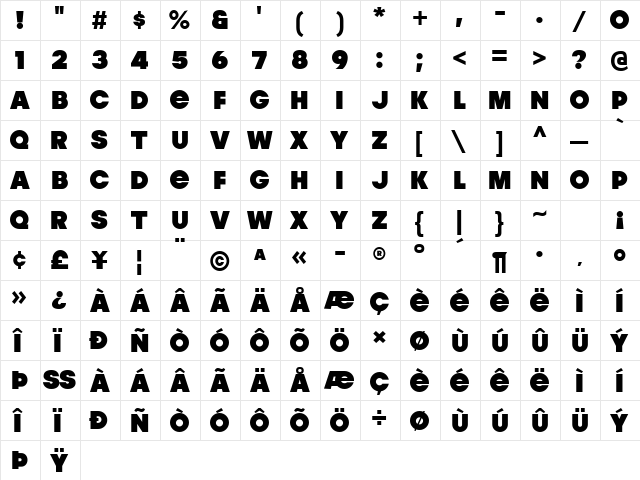
Meloriac Regular Font Preview
Meloriac Regular
Meloriac Regular Font Details
Design Context for Meloriac Typeface
Meloriac takes a measured approach to typography — its balanced proportions and neutral character make it a reliable workhorse for both digital and print work.
Pro Tip: Pair Meloriac with a font of contrasting weight or personality to build a more expressive typographic hierarchy.